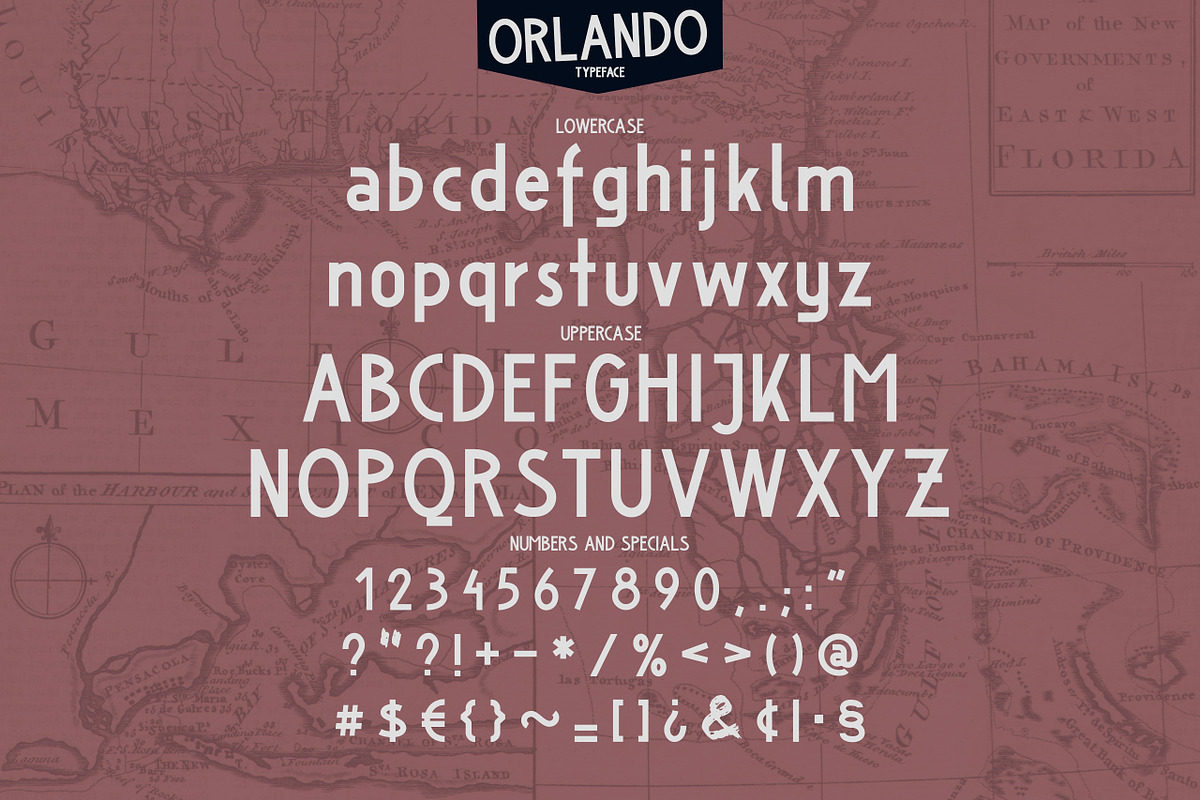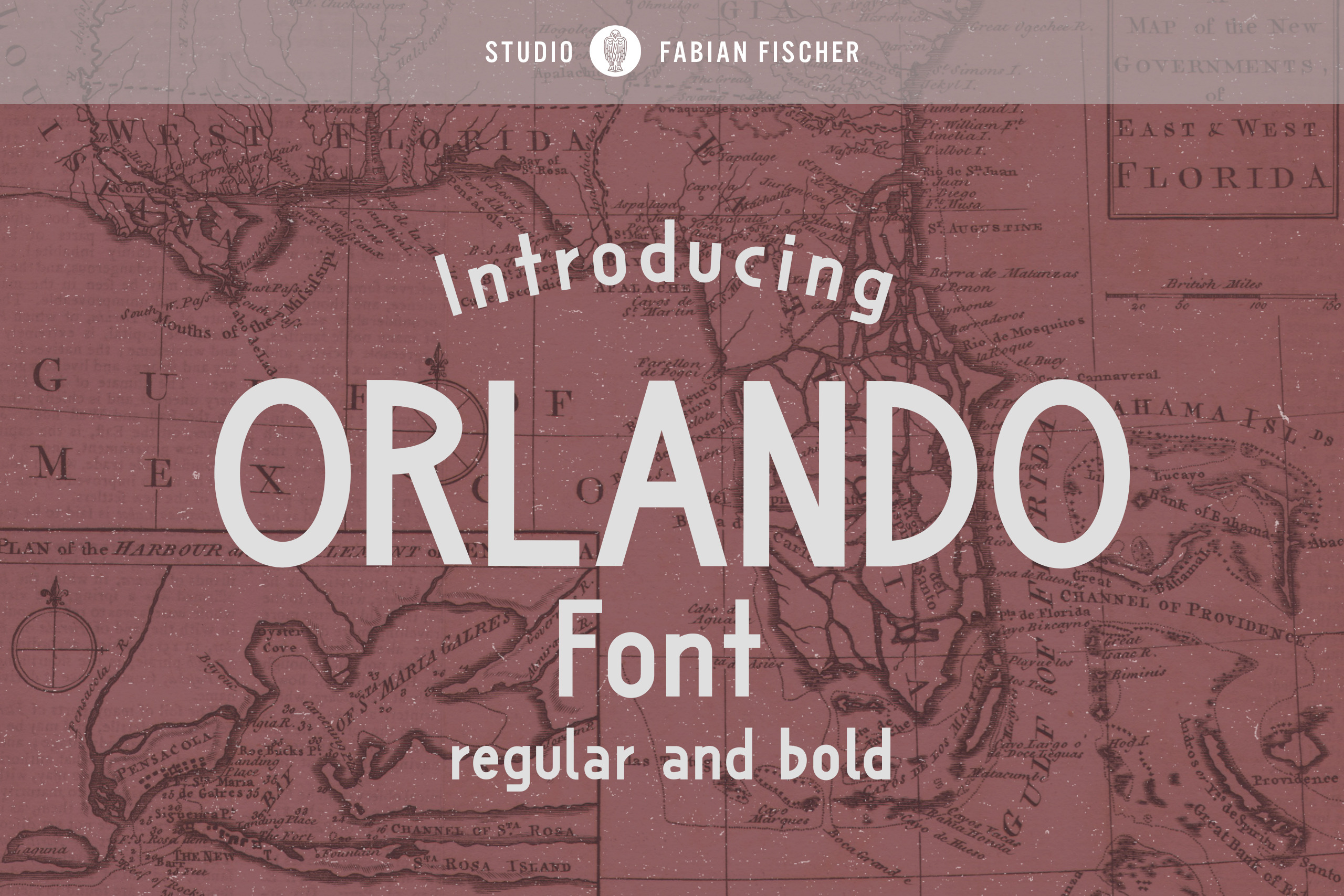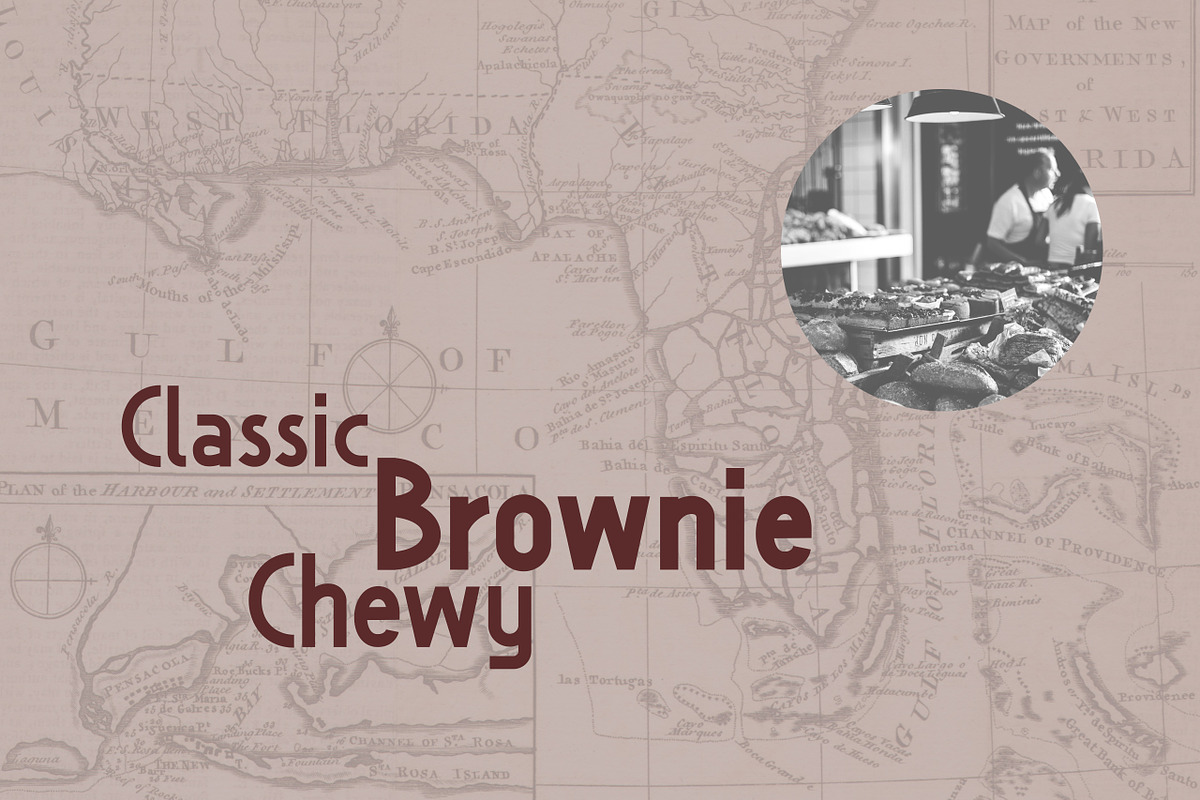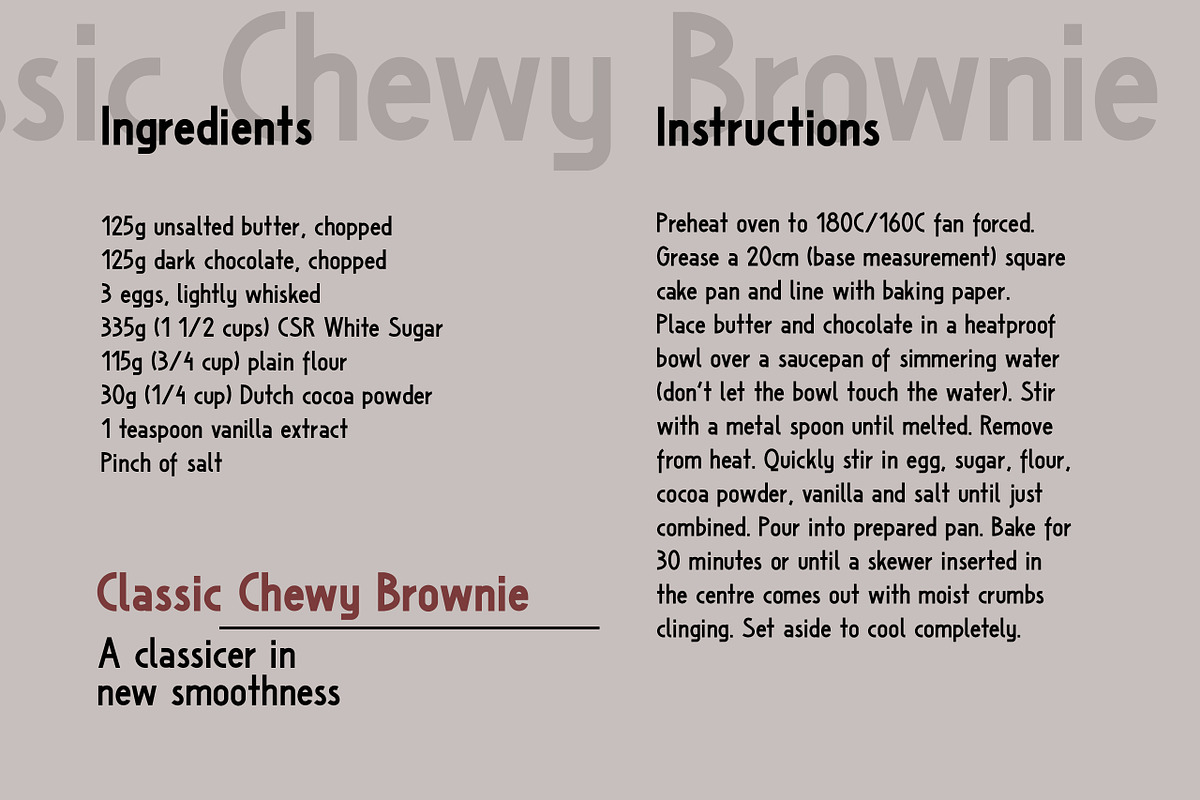
Orlando Font
Orlando Font is a classic font. This typeface includes all uppercase and lowercase letters. It works great for both modern and vintage style work. This font comes in two wights: regular and bold.
Use Orlando Font in a range of items like packaging, posters, logotypes, branding, book covers, magazines, wedding stationery and much more.